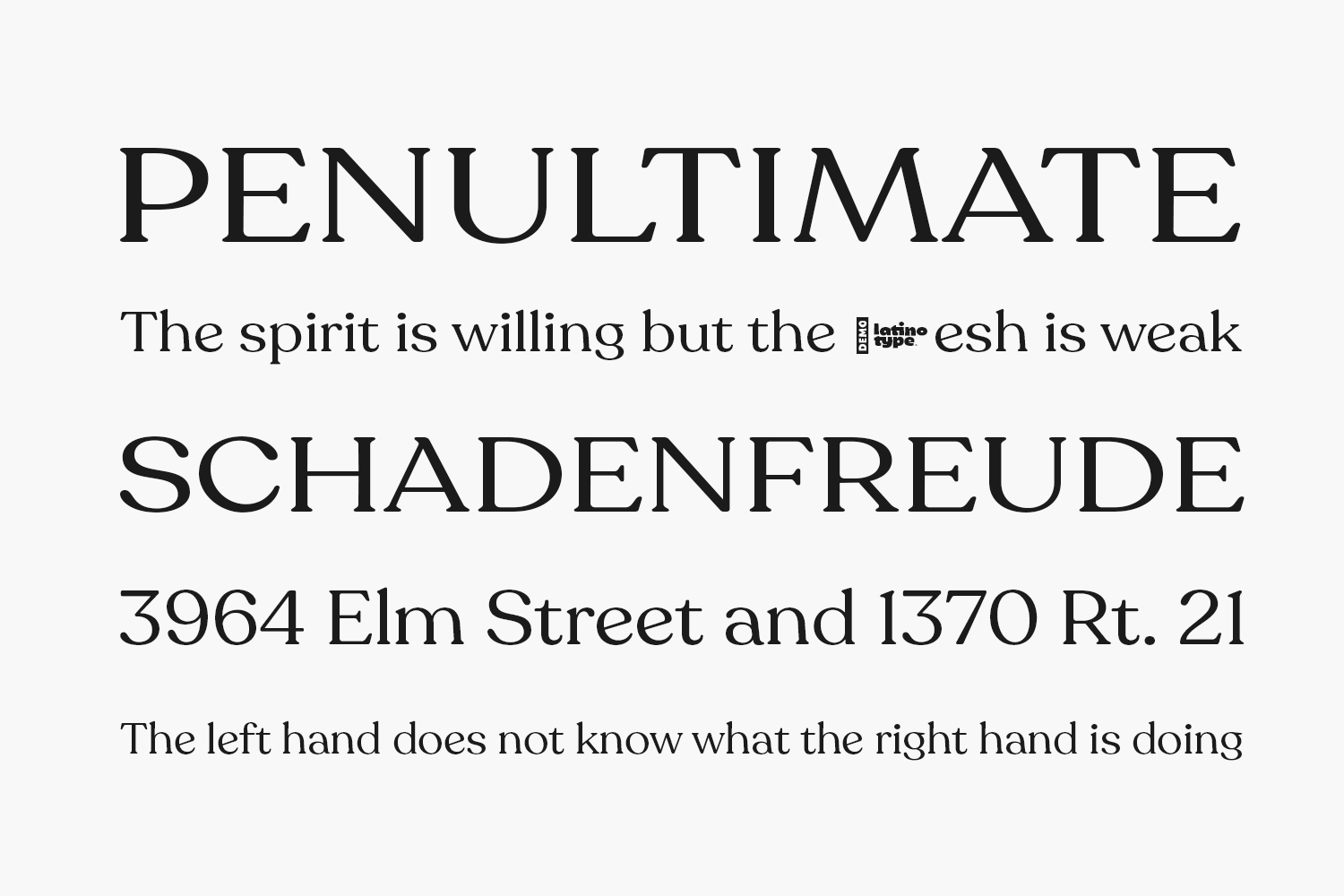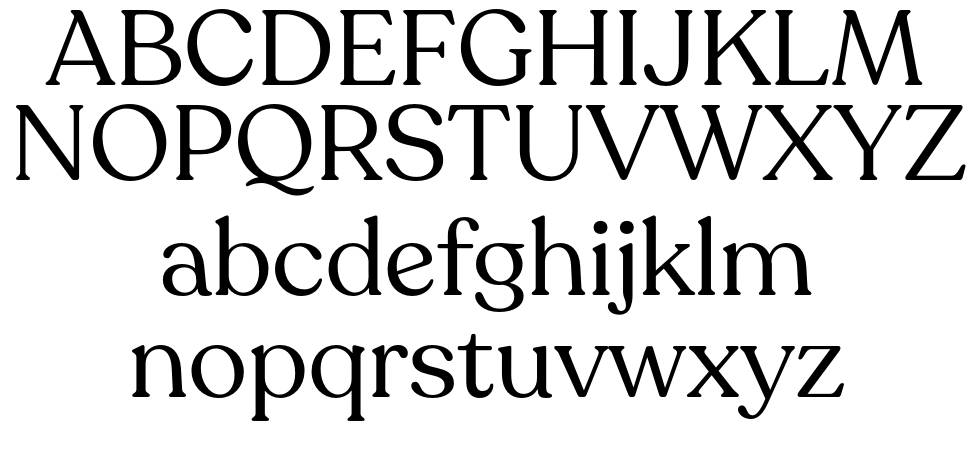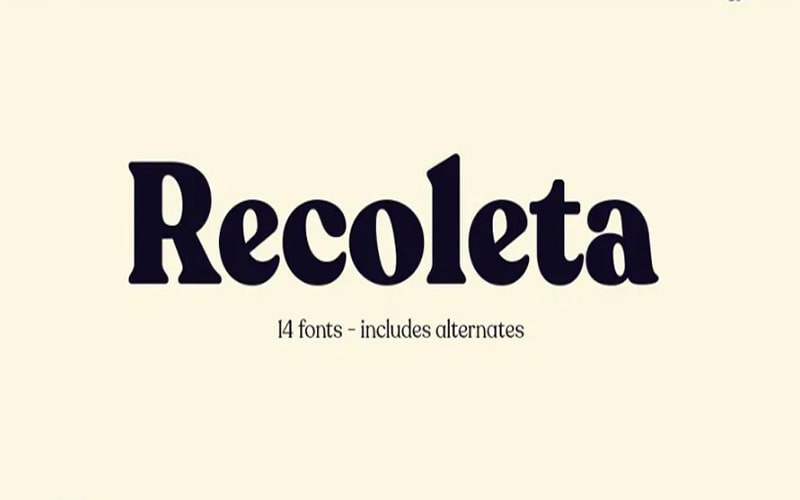
Recoleta Font Free - Web recoleta font just like grandma’s recipe, recoleta combines a variety of ingredients—from various popular 1970s typefaces—such as the soft and. With a bit modern and a little bit retro. Recoleta font is an elegant wedge serif typeface that is sure to stand out! Recoleta is a serif typeface designed by jorge cisterna and published through latinotype in 2018. The design fondly recalls the soft, warm serifs popular during. The available stylistic alternates offer a number of. Web note of the author. Web recoleta font download free.
Recoleta is a serif typeface designed by jorge cisterna and published through latinotype in 2018. With a bit modern and a little bit retro. Web recoleta font just like grandma’s recipe, recoleta combines a variety of ingredients—from various popular 1970s typefaces—such as the soft and. Web recoleta font download free. The design fondly recalls the soft, warm serifs popular during. Recoleta font is an elegant wedge serif typeface that is sure to stand out! The available stylistic alternates offer a number of. Web note of the author.
The design fondly recalls the soft, warm serifs popular during. Recoleta font is an elegant wedge serif typeface that is sure to stand out! Web note of the author. With a bit modern and a little bit retro. Web recoleta font just like grandma’s recipe, recoleta combines a variety of ingredients—from various popular 1970s typefaces—such as the soft and. Recoleta is a serif typeface designed by jorge cisterna and published through latinotype in 2018. The available stylistic alternates offer a number of. Web recoleta font download free.
Web recoleta font download free. Web recoleta font just like grandma’s recipe, recoleta combines a variety of ingredients—from various popular 1970s typefaces—such as the soft and. Recoleta is a serif typeface designed by jorge cisterna and published through latinotype in 2018. The design fondly recalls the soft, warm serifs popular during. Recoleta font is an elegant wedge serif typeface that.
The design fondly recalls the soft, warm serifs popular during. Recoleta is a serif typeface designed by jorge cisterna and published through latinotype in 2018. Recoleta font is an elegant wedge serif typeface that is sure to stand out! Web note of the author. Web recoleta font download free.
The available stylistic alternates offer a number of. The design fondly recalls the soft, warm serifs popular during. With a bit modern and a little bit retro. Web recoleta font just like grandma’s recipe, recoleta combines a variety of ingredients—from various popular 1970s typefaces—such as the soft and. Recoleta font is an elegant wedge serif typeface that is sure to.
Recoleta is a serif typeface designed by jorge cisterna and published through latinotype in 2018. The available stylistic alternates offer a number of. Recoleta font is an elegant wedge serif typeface that is sure to stand out! Web note of the author. Web recoleta font just like grandma’s recipe, recoleta combines a variety of ingredients—from various popular 1970s typefaces—such as.
Web note of the author. The design fondly recalls the soft, warm serifs popular during. With a bit modern and a little bit retro. The available stylistic alternates offer a number of. Recoleta font is an elegant wedge serif typeface that is sure to stand out!
Web note of the author. Recoleta font is an elegant wedge serif typeface that is sure to stand out! The design fondly recalls the soft, warm serifs popular during. Recoleta is a serif typeface designed by jorge cisterna and published through latinotype in 2018. Web recoleta font download free.
Recoleta Font Family Free Free Fonts
The available stylistic alternates offer a number of. With a bit modern and a little bit retro. Web recoleta font download free. The design fondly recalls the soft, warm serifs popular during. Web note of the author.
Recoleta Font Free Download
The available stylistic alternates offer a number of. Web recoleta font download free. Recoleta is a serif typeface designed by jorge cisterna and published through latinotype in 2018. The design fondly recalls the soft, warm serifs popular during. With a bit modern and a little bit retro.
Recoleta font free download for WEB
Web note of the author. Recoleta is a serif typeface designed by jorge cisterna and published through latinotype in 2018. The available stylistic alternates offer a number of. Recoleta font is an elegant wedge serif typeface that is sure to stand out! Web recoleta font just like grandma’s recipe, recoleta combines a variety of ingredients—from various popular 1970s typefaces—such as.
Recoleta font free download for WEB
Web note of the author. The available stylistic alternates offer a number of. Web recoleta font just like grandma’s recipe, recoleta combines a variety of ingredients—from various popular 1970s typefaces—such as the soft and. Web recoleta font download free. The design fondly recalls the soft, warm serifs popular during.
Web Note Of The Author.
Recoleta font is an elegant wedge serif typeface that is sure to stand out! Recoleta is a serif typeface designed by jorge cisterna and published through latinotype in 2018. Web recoleta font download free. The design fondly recalls the soft, warm serifs popular during.
The Available Stylistic Alternates Offer A Number Of.
Web recoleta font just like grandma’s recipe, recoleta combines a variety of ingredients—from various popular 1970s typefaces—such as the soft and. With a bit modern and a little bit retro.